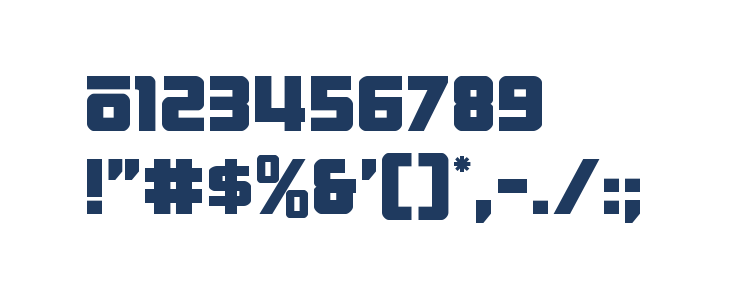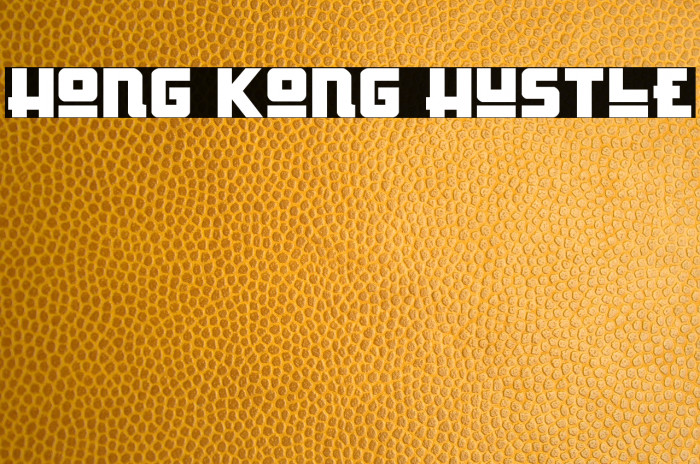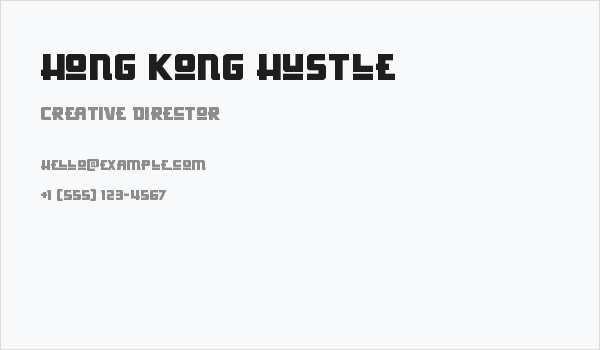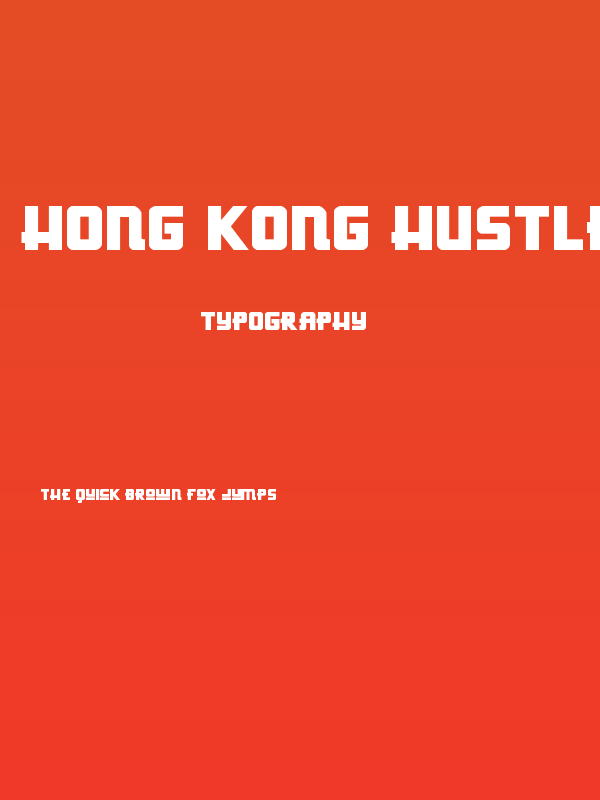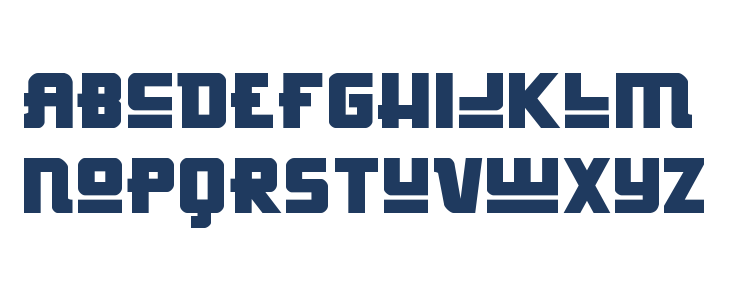
Hong Kong Hustle Font
Hong Kong Hustle Description
This font features a bold, geometric style with a strong emphasis on angular shapes and sharp edges. The characters are blocky and robust, creating a sense of strength and modernity. The uppercase and lowercase letters share a consistent design, with some letters incorporating unique cutouts and lines that add a futuristic touch. The numbers and special characters maintain the same bold and structured appearance, ensuring uniformity across all glyphs. This font is highly legible and makes a striking visual impact, making it suitable for various design applications.
| Proposed Projects | Ideal for branding, posters, video game design, and any project requiring a strong, modern aesthetic. |